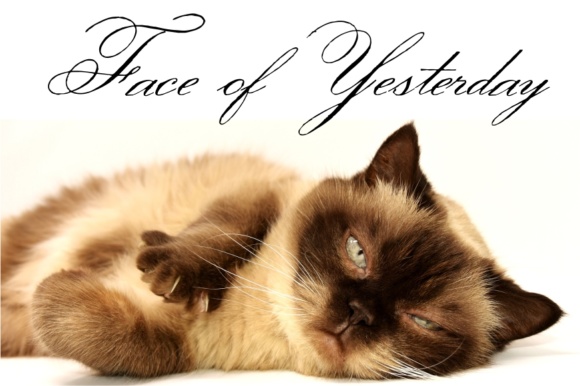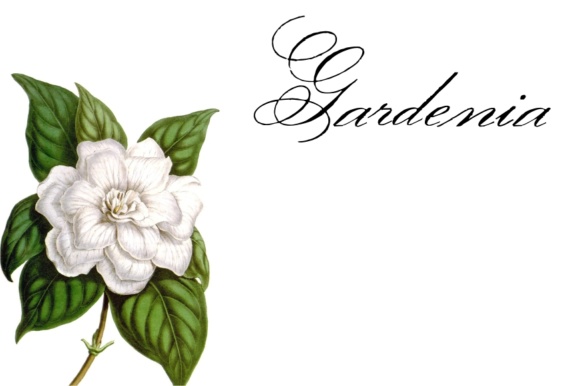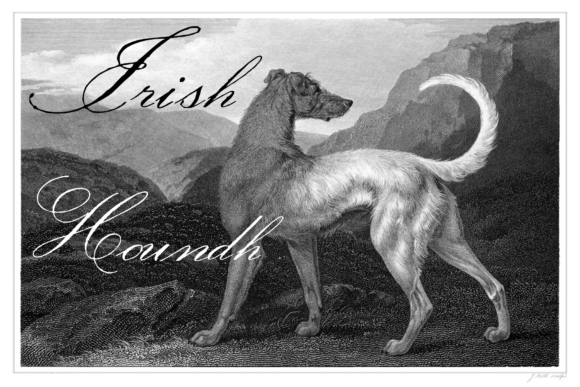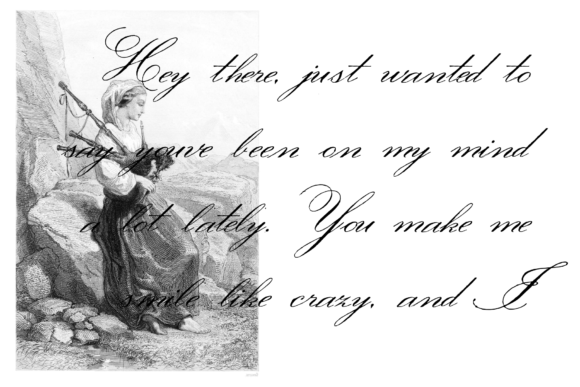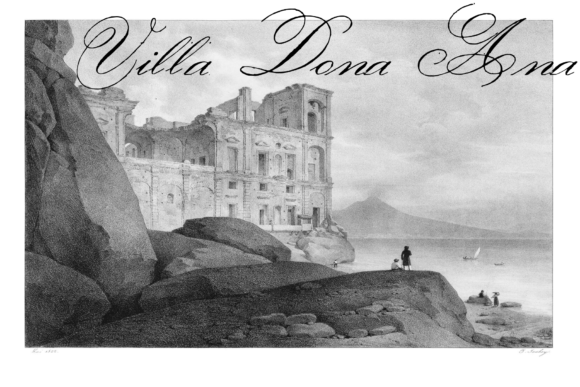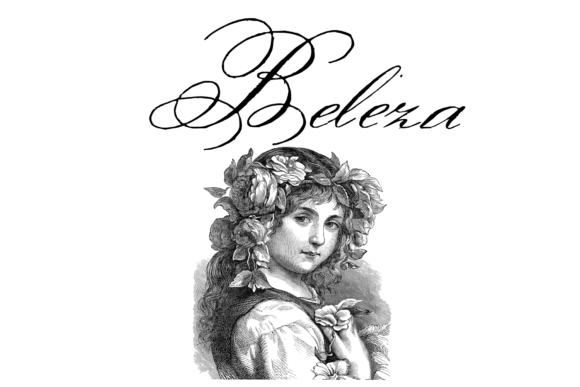
Discover the Timeless Elegance of Face of Yesterday Font
Are you a designer or crafter looking to add a touch of classic sophistication to your projects? Look no further than the Face of Yesterday Font, a stunning calligraphy font that embodies the elegance and charm of a bygone era. With its fluid strokes and vintage flair, this beautiful script is sure to transport your designs back in time, evoking the nostalgia and romance of yesteryear.
The Beauty of Face of Yesterday Font
Face of Yesterday Font is a masterpiece of calligraphic design, boasting a unique blend of movement and style that sets it apart from other fonts. Its intricate lettering and flowing connections create a sense of dynamism, as if the words themselves are dancing across the page. This font is perfect for designers who want to add a touch of whimsy and personality to their work, whether it’s a wedding invitation, a branding campaign, or a craft project.
Anchored in Yesteryear
As its name suggests, Face of Yesterday Font is deeply rooted in the past, drawing inspiration from traditional calligraphy and vintage typography. The font’s classic appeal is undeniable, with each letter and numeral carefully crafted to evoke the feeling of a bygone era. Whether you’re looking to create a retro-themed design or simply want to add a touch of timeless elegance to your work, Face of Yesterday Font is the perfect choice.
Uses for Face of Yesterday Font
Face of Yesterday Font is incredibly versatile, making it suitable for a wide range of design applications. Here are just a few ideas to get you started:
- Wedding Invitations: Add a touch of romance and sophistication to your wedding invitations with Face of Yesterday Font.
- Branding: Use this font to create a unique and memorable brand identity that stands out from the crowd.
- Craft Projects: Add a personal touch to your craft projects, such as handmade cards, gift tags, and scrapbooking pages.
- Signage: Create eye-catching signs and displays with Face of Yesterday Font, perfect for businesses, events, or exhibitions.
Why Choose Face of Yesterday Font?
With so many fonts available, why choose Face of Yesterday Font? Here are just a few reasons why this font stands out:
- Unique and Distinctive: Face of Yesterday Font is a one-of-a-kind font that will set your designs apart from the crowd.
- Elegant and Sophisticated: This font exudes classic elegance and sophistication, making it perfect for high-end designs.
- Versatile: Face of Yesterday Font can be used for a wide range of design applications, from wedding invitations to branding campaigns.
Key Features of Face of Yesterday Font
- Calligraphy font with tons of movement and style
- Classic appeal with a vintage flair
- Unique and distinctive lettering and connections
- Versatile and suitable for a wide range of design applications
Overall, Face of Yesterday Font is a stunning addition to any designer’s toolkit, offering a unique blend of elegance, sophistication, and whimsy. Whether you’re a seasoned pro or just starting out, this font is sure to inspire your creativity and help you create designs that are truly timeless.